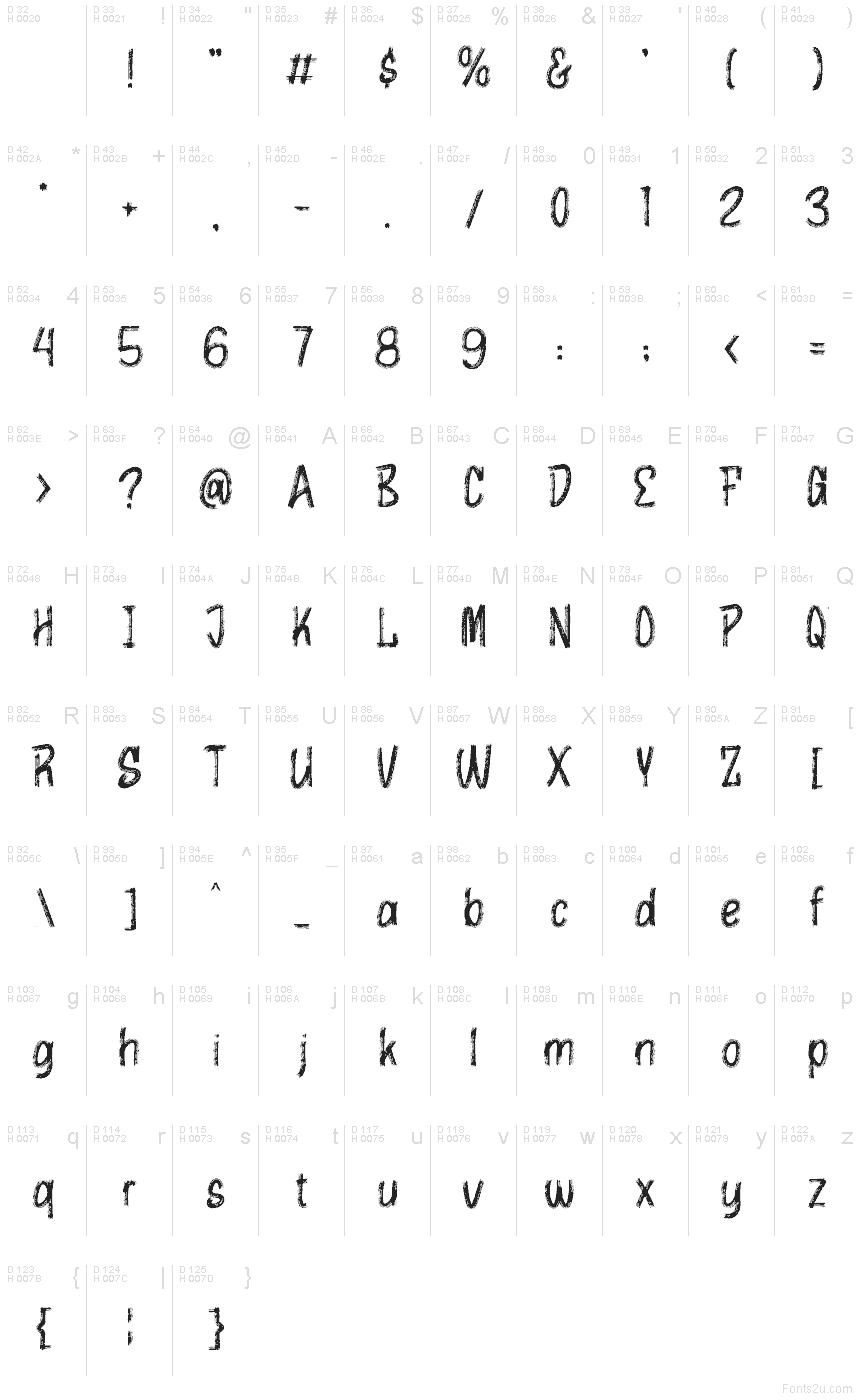
Sumer Clovie
Sumer Clovie font by Ermedia Studio is a free chalk display font that captures the dusty, hand-rubbed charm of a real blackboard. Its grainy strokes and scuffed edges feel freshly sketched, with lively rhythm and a touch of playful wobble that reads as human, not “clipart.” Built for blackboard moments, it brings tactile warmth to layouts that need a friendly, handmade cue.
Using Sumer Clovie, you’ll shine on classroom posters, café menus and specials, kids’ party invites, craft packaging, educational apps, DIY labels, and workshop flyers. Keep it big with generous line spacing to let the texture breathe, and pair it with a clean rounded sans for body copy so the chalky headlines stay in the spotlight. This free font makes casual messaging look effortlessly authentic.